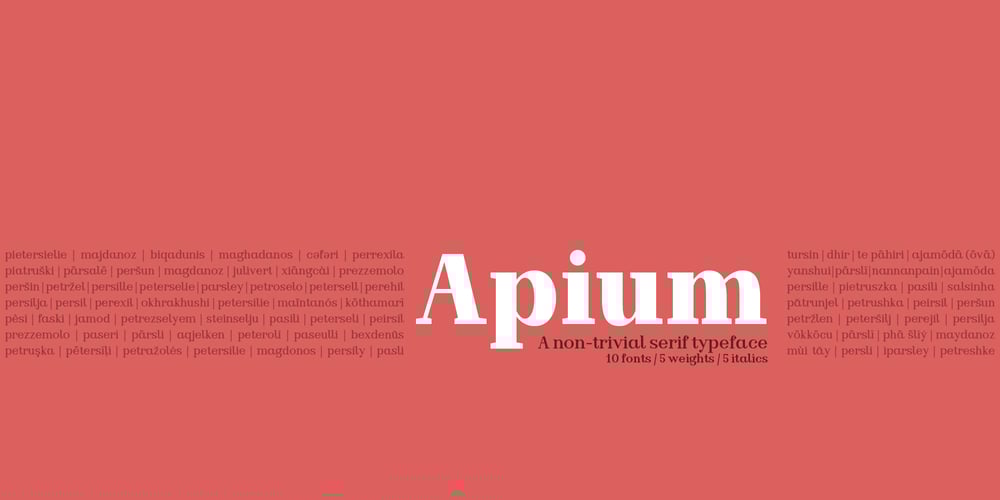
Apium
Apium font
Apium Font Family was designed by Joke De Winter and published by Spilling Type. Apium contains 10 styles and family package options. Apium is a non-trivial serif typeface. Inspired by the lettering of an old advert, it aims to add fun to a serif with distinctive features. It comes in five weights with matching italics. The typeface performs well in display environment: headings, stand out text, packaging, posters and so on. The regular and medium weights work well as body text. The typeface is suitable for print and digital.Apium has Latin Extended A and Latin Plus Multi-Lingual support. OpenType features include: Small capitals, Discretionary ligatures, Standard ligatures, Lining figures, Oldstyle figures, Proportional figures, Tabular figures, Ordinals, Denominators, Numerators, Scientific inferiors, Subscript, Superscript and Fractions. The word apium is Latin for parsley. The original advert was for a vegetable margarine and that got me on the road of a food theme.